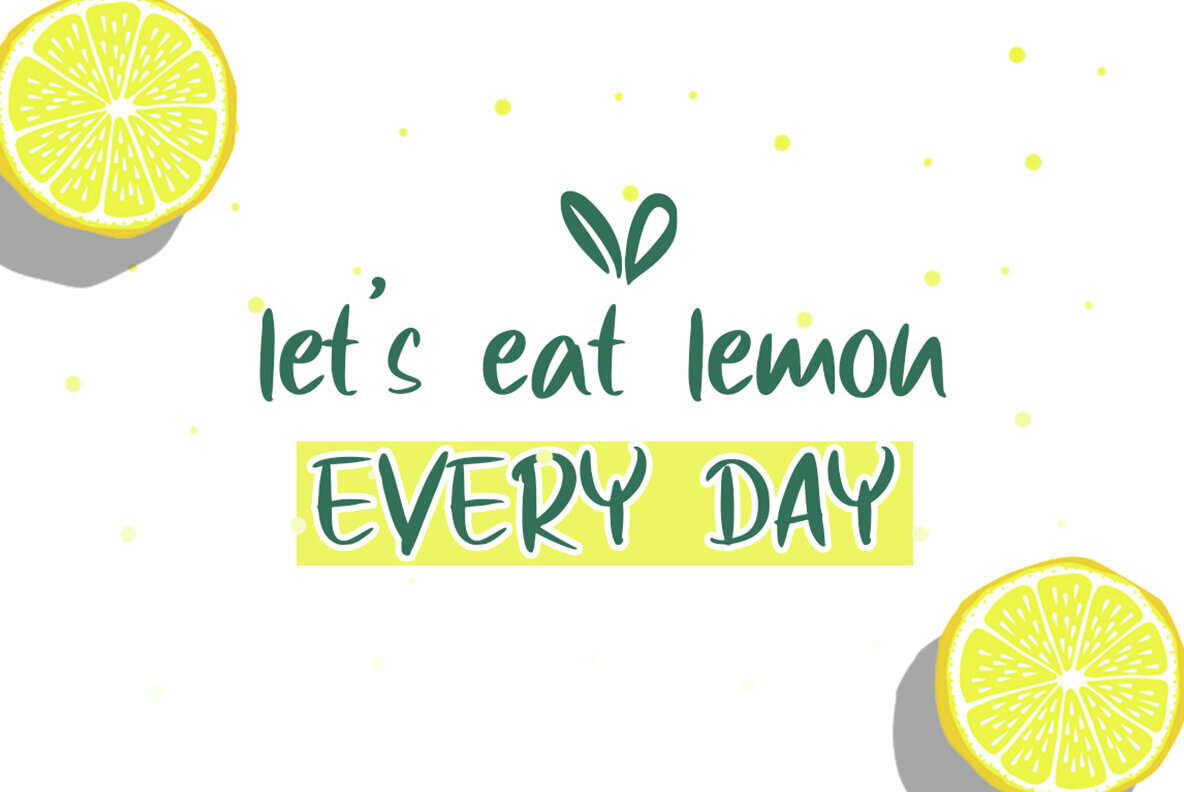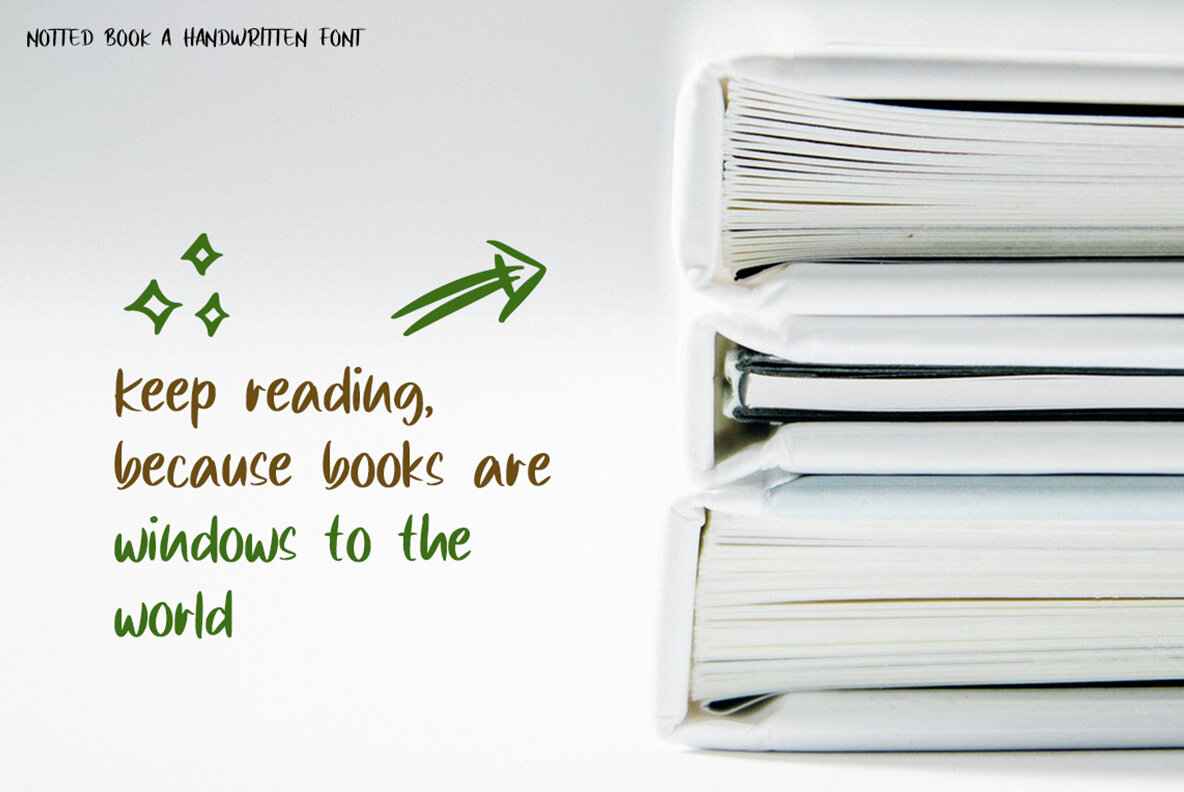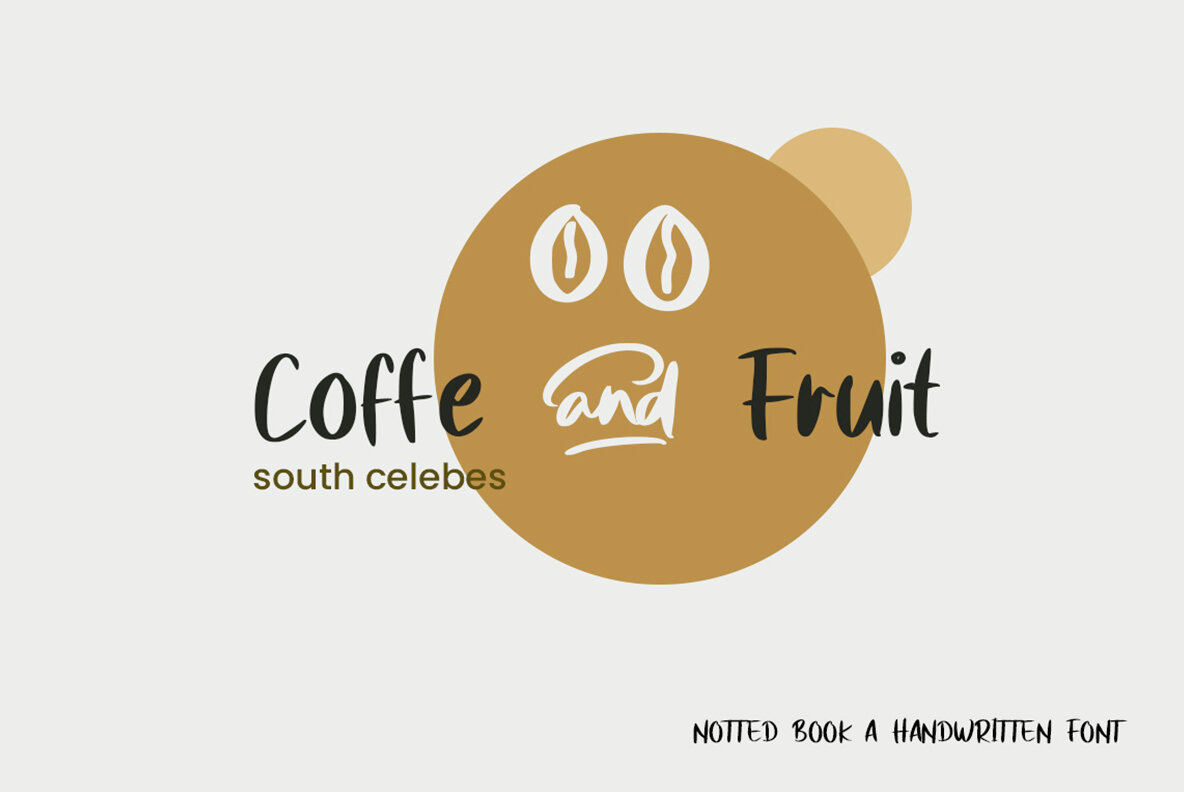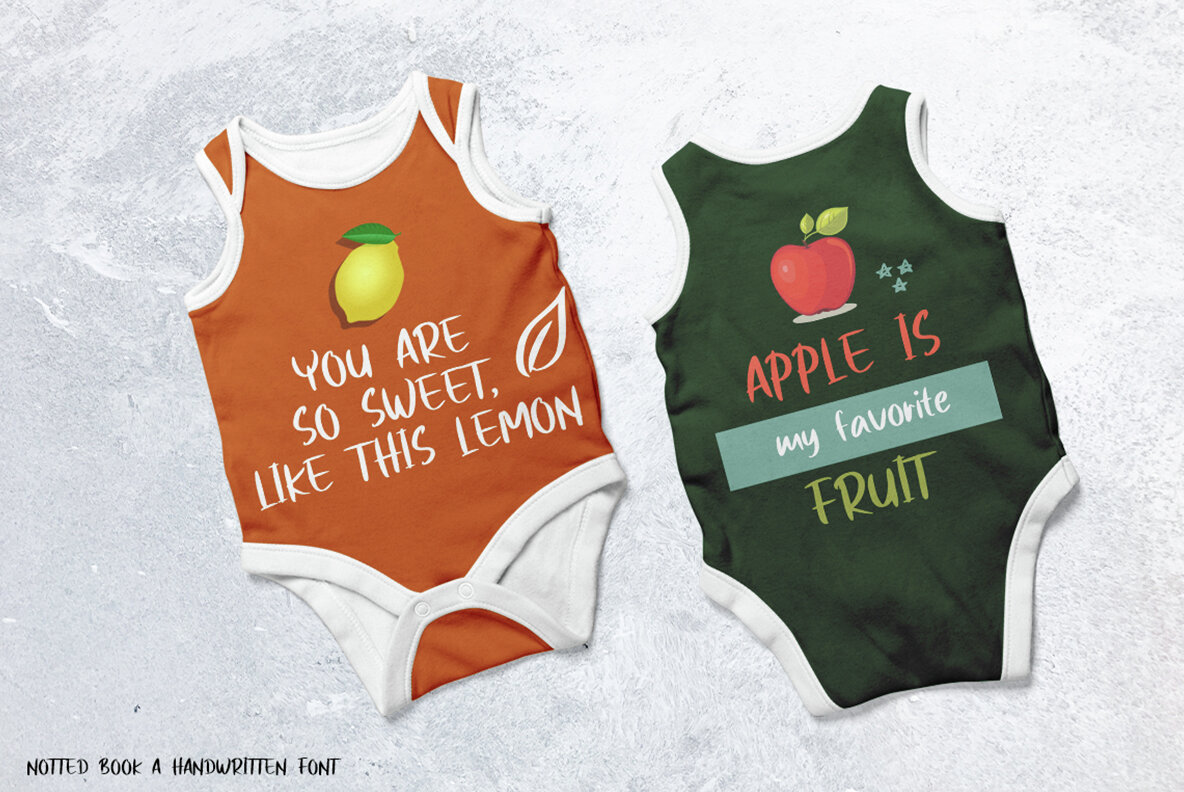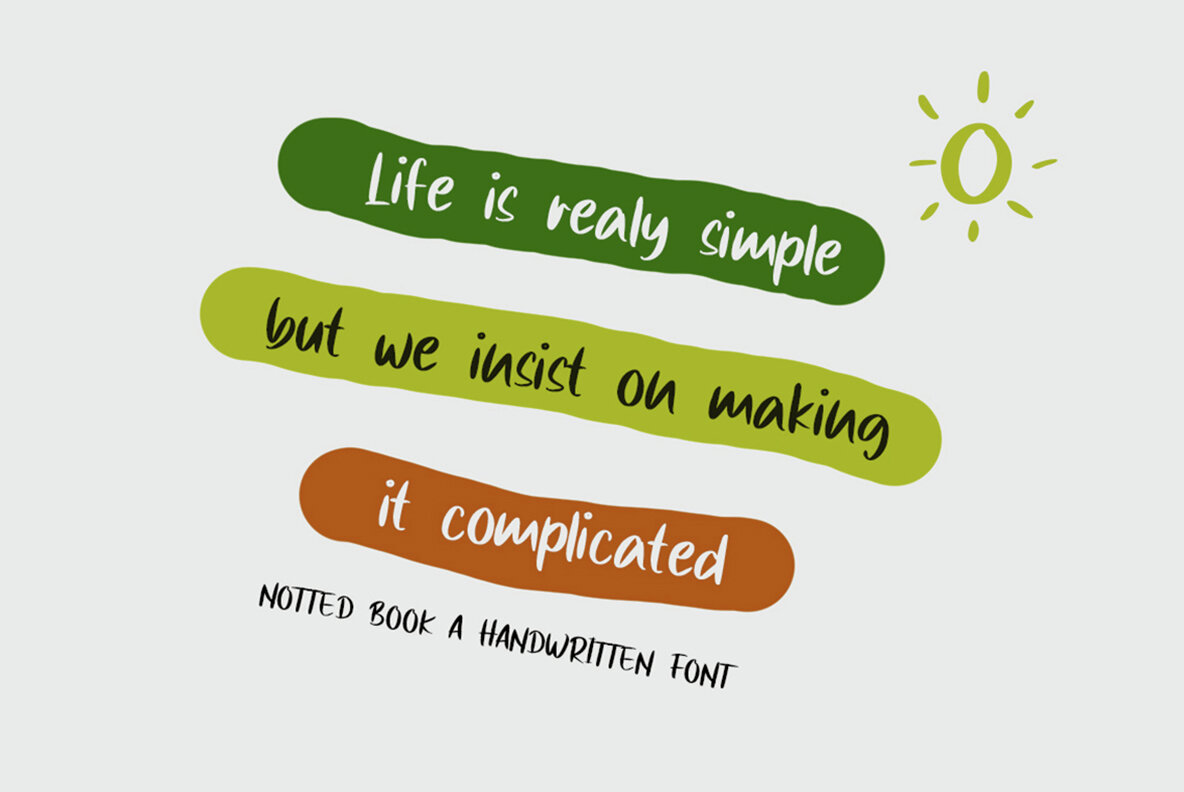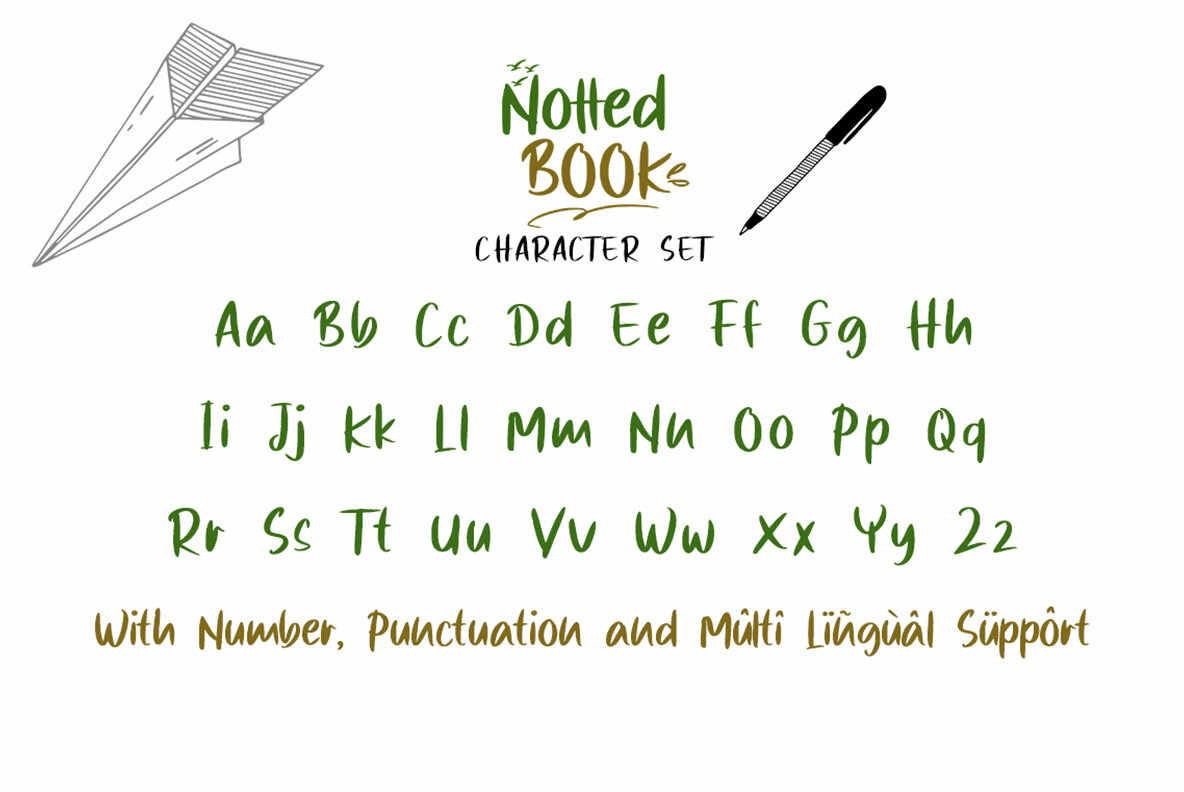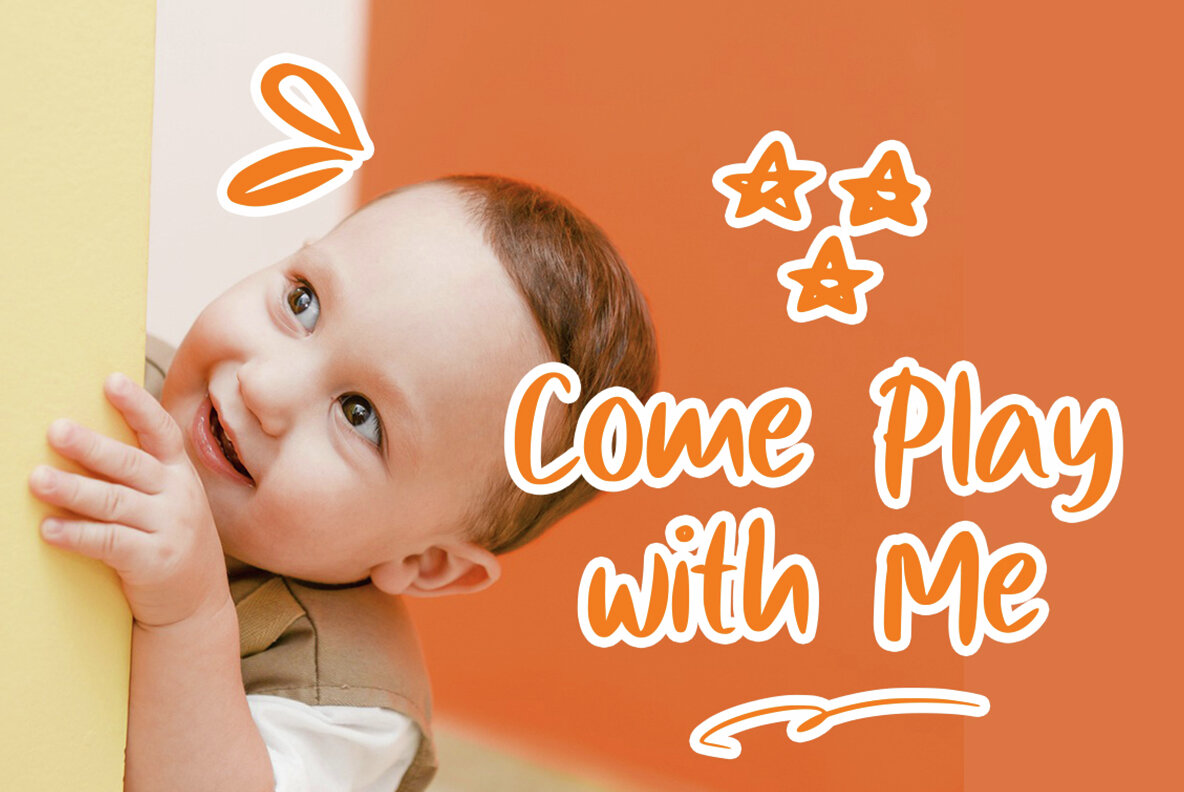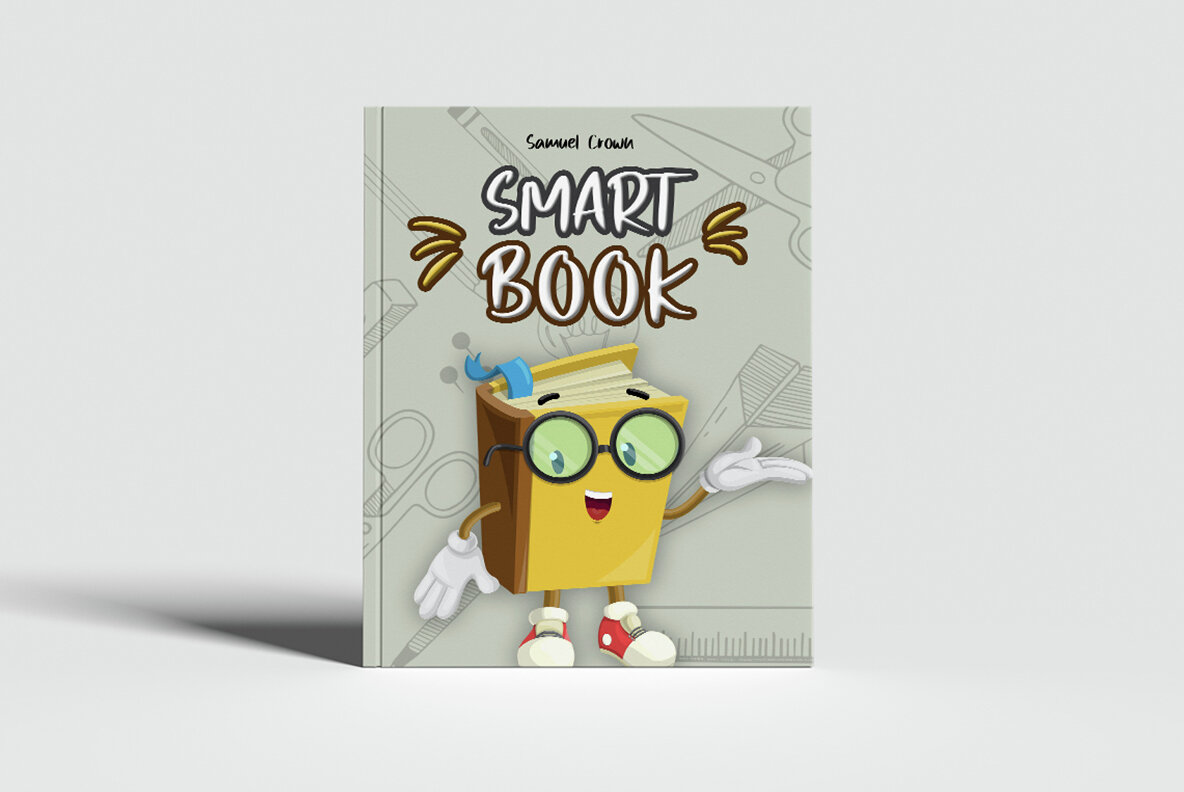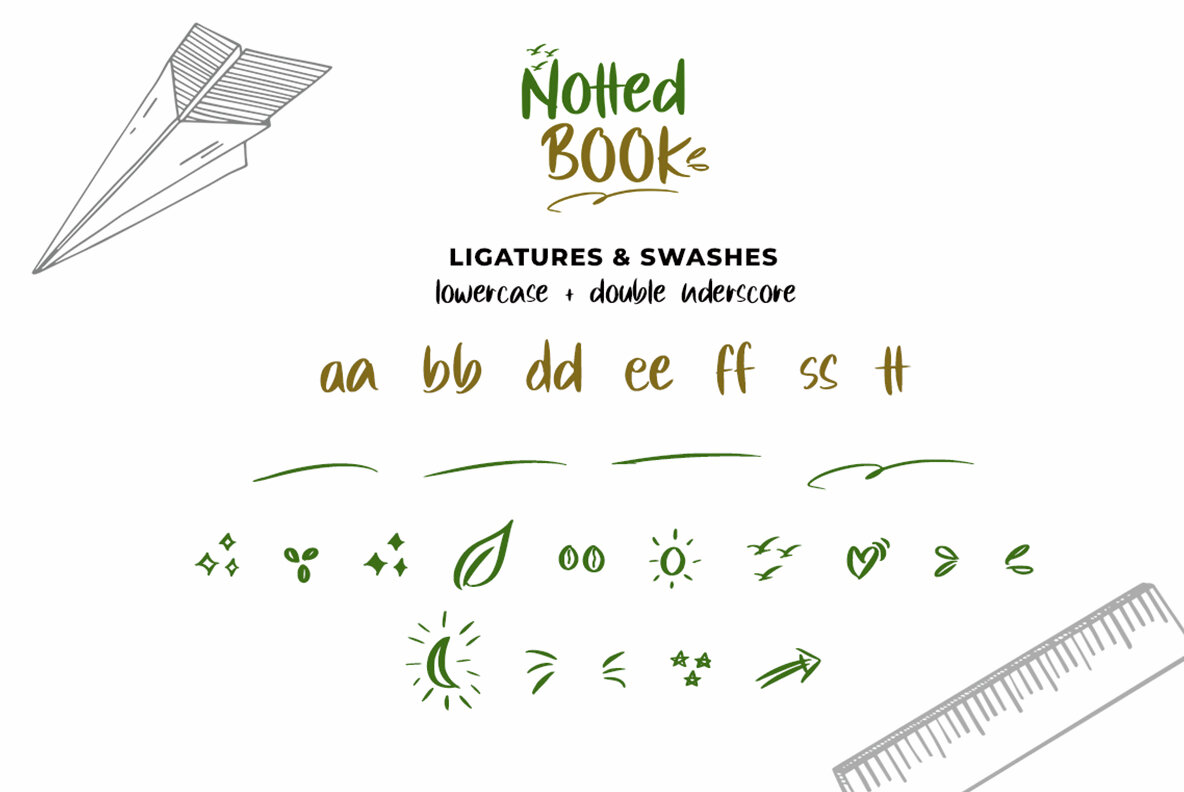
Notted Book: A Cheerful Handwritten Font by Megatype
Notted Book is a delightful handwritten font characterized by its cheerful and fun design. Crafted with care and affection, this font is an excellent choice for adding a playful touch to your projects.
• Versatile Usage – Perfect for apps, book covers, and children's toys.
• Theme Suitability – Excellent for movies, children's theme parks, and pajama party posters.
• Inspirational Quotes – Adds a cheerful flair to motivational messages.